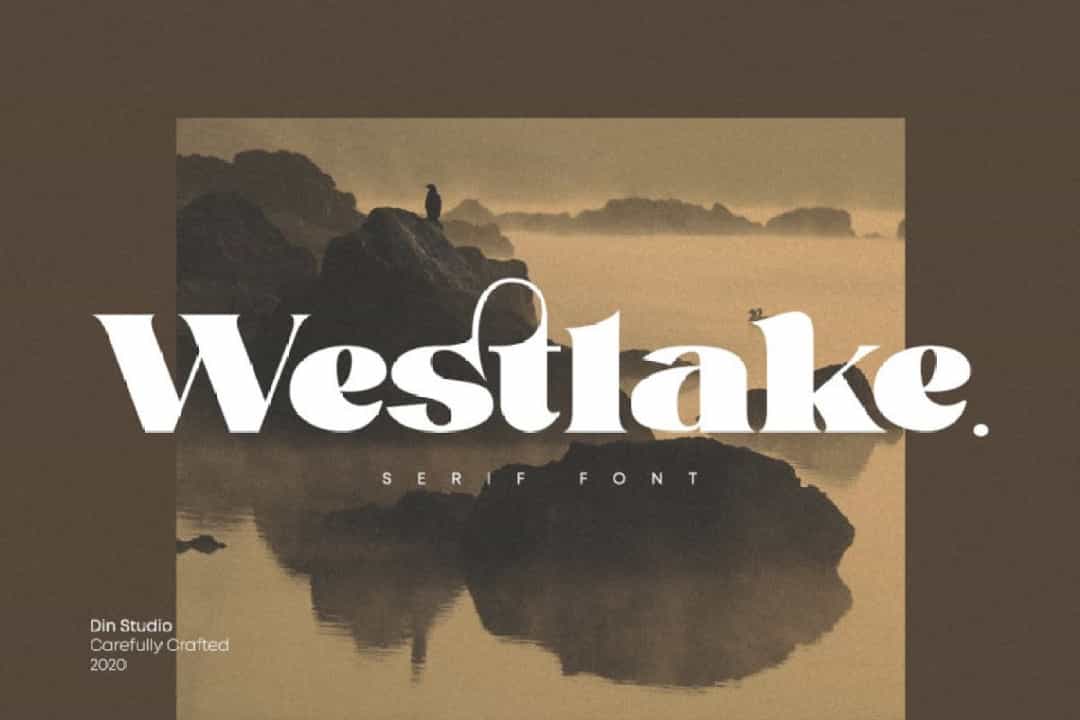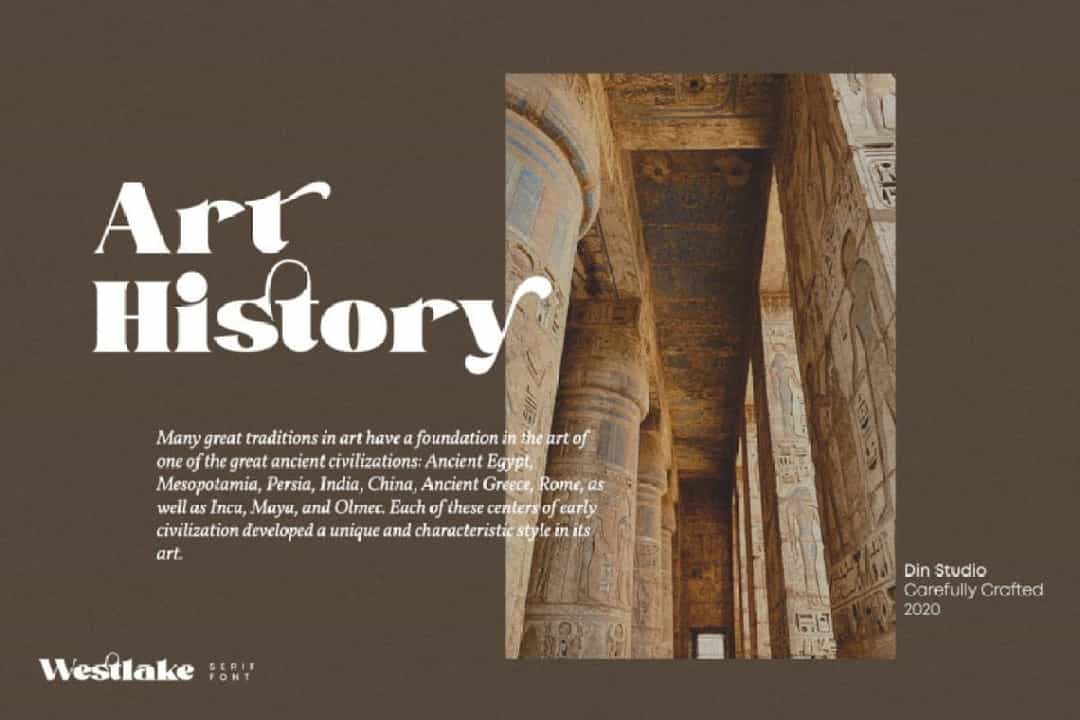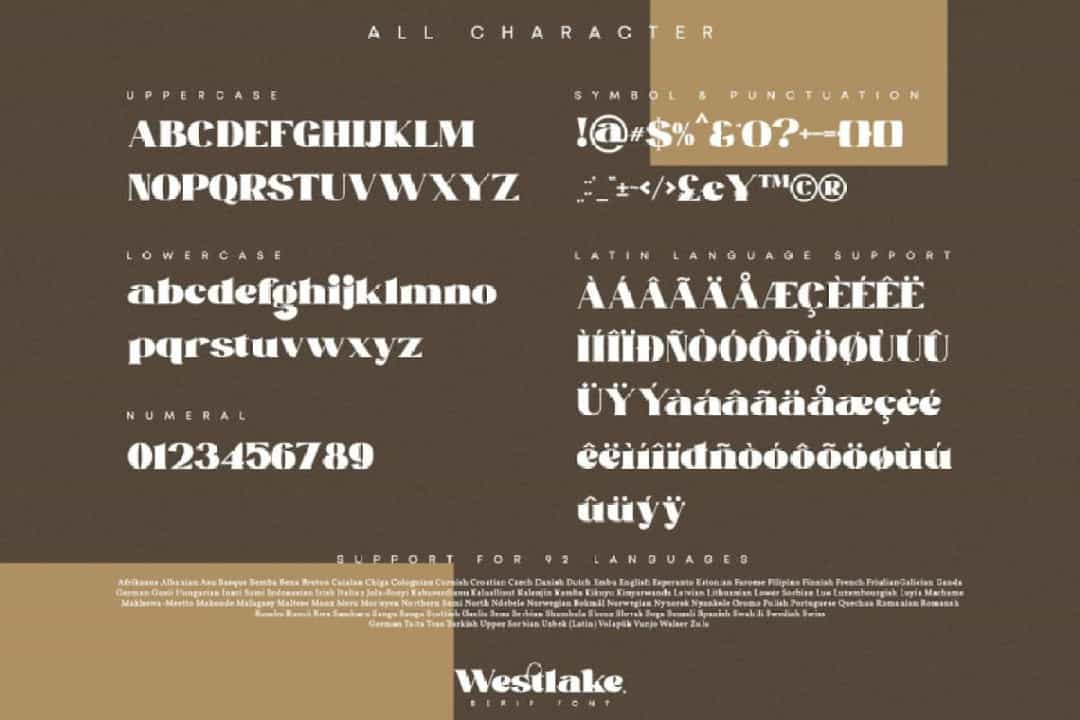
Westlake font is a serif typeface which contains the lower case letters with ligatures, symbols for many languages numerals, punctuations and numerals that can be used for corporate identity. All the letters in this font are elegant and unique in their design – perfect for using with logos, and quotes!